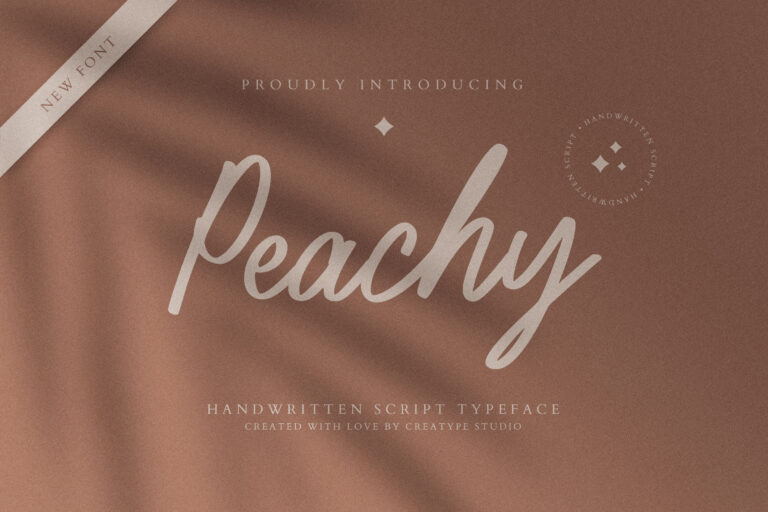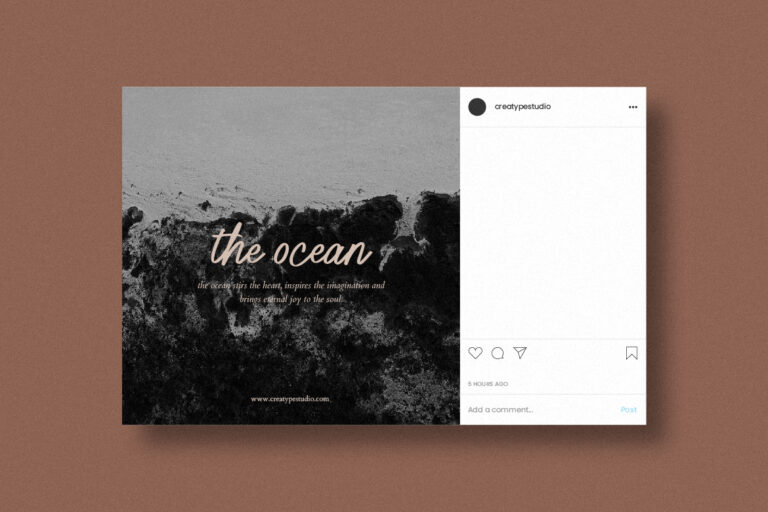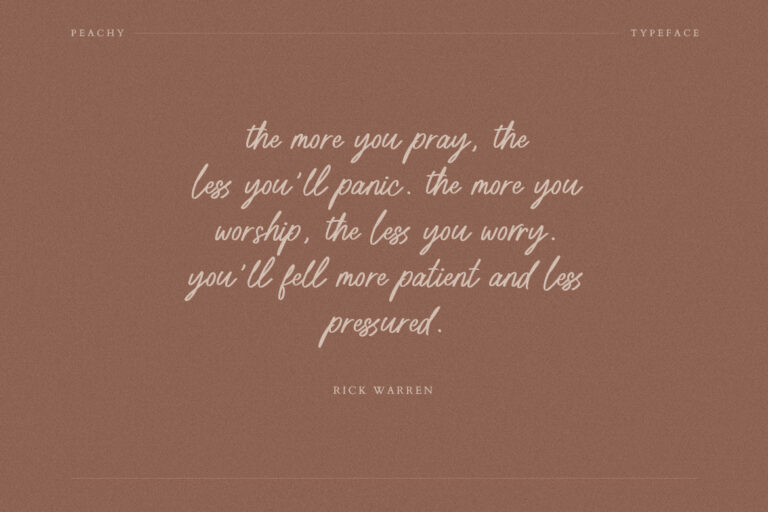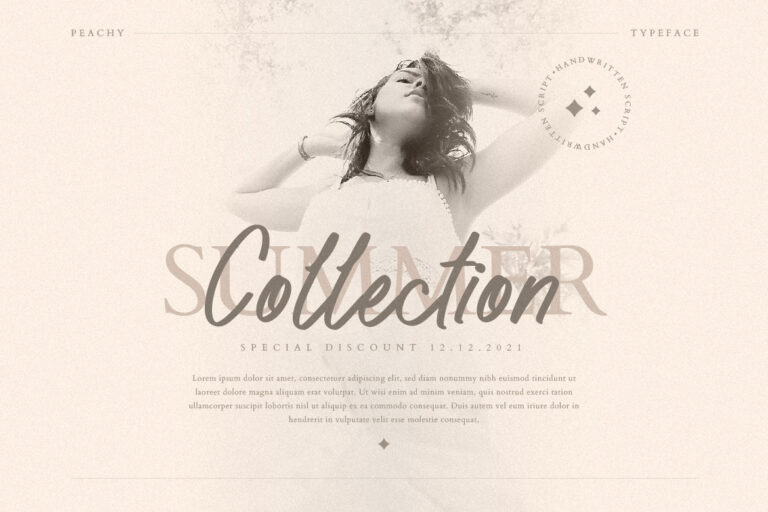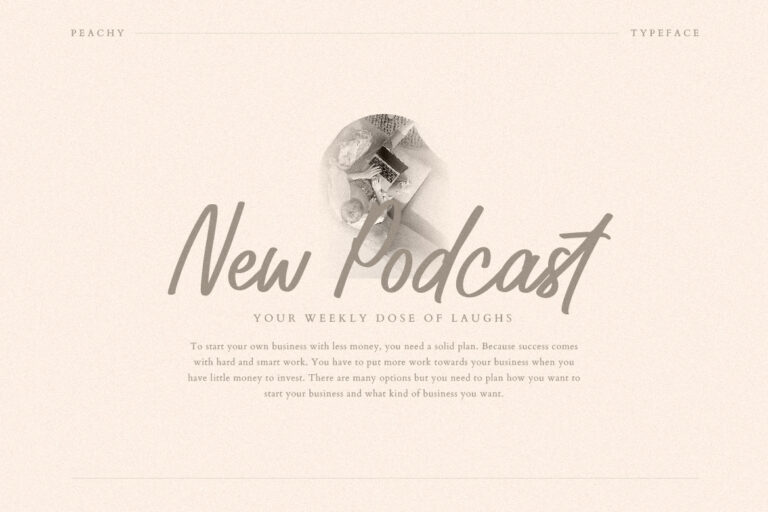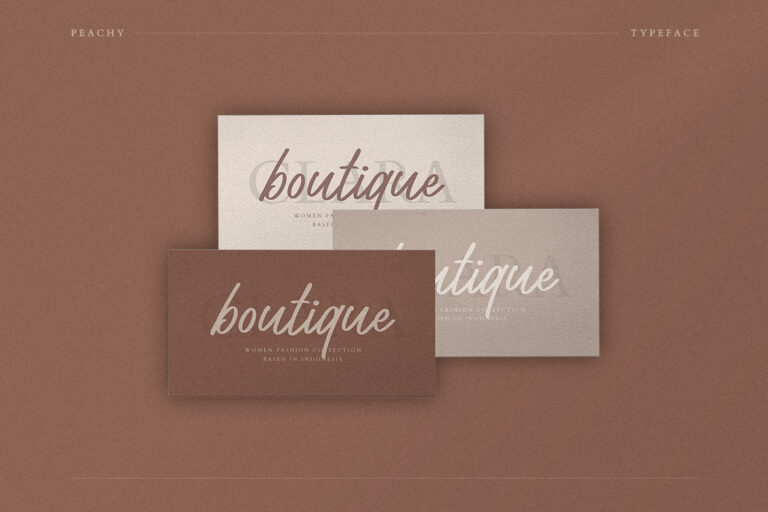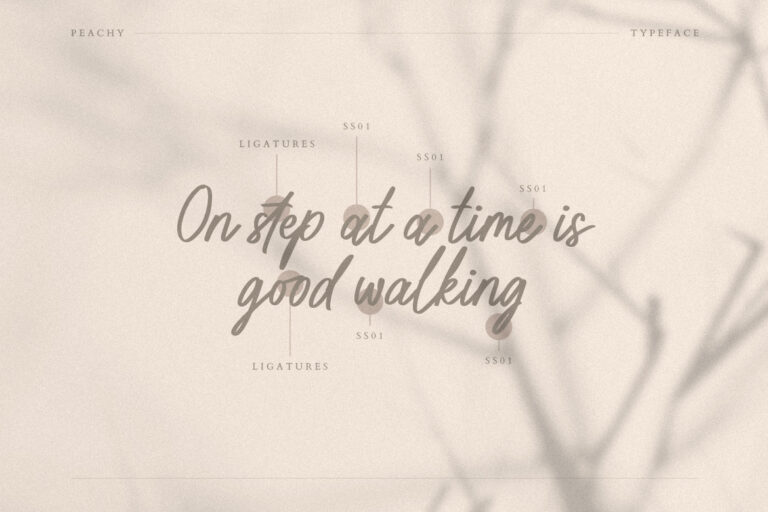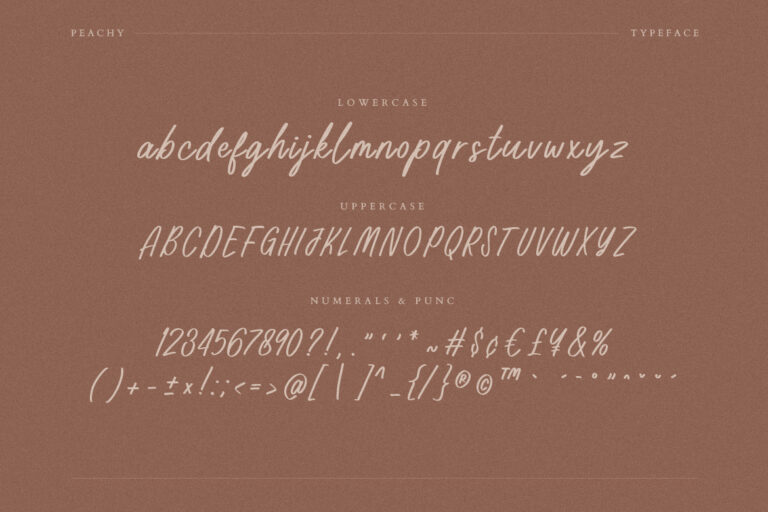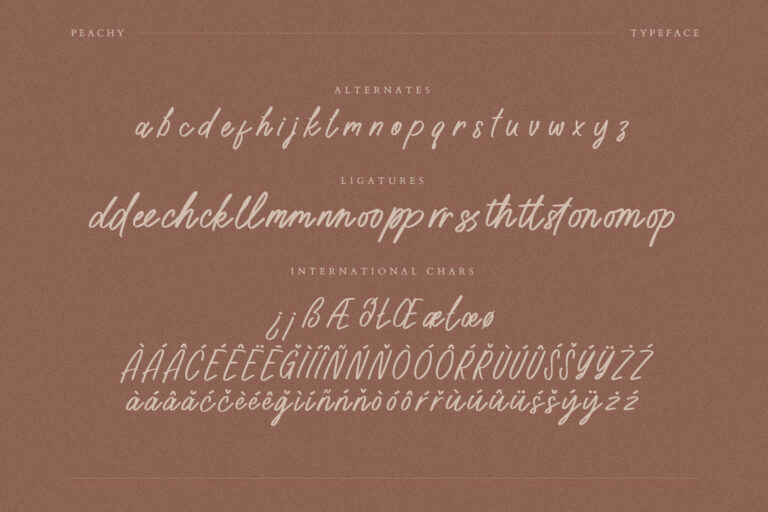
Peachy is a handwritten script typeface specially made by the hands of experts, making this font look so beautiful and natural. This font can be used for products that use a natural, beautiful and charming handwriting feel.
Peachy is perfect for branding projects, logo, wedding designs, social media posts, advertisements, product packaging, product designs, label, photography, watermark, invitation, stationery and any projects that need handwriting taste.
- Fonts include multilingual support for; Afrikaans, Albanian, Czech, Danish, Dutch, English, Estonian, Finnish, French, German, Hungarian, Italian, Latvian, Lithuanian, Norwegian, Polish, Portuguese, Slovak, Slovenian, Spanish, Swedish.
Peachy Handwritten Script